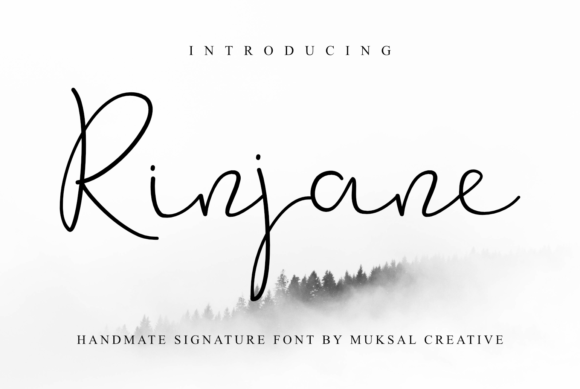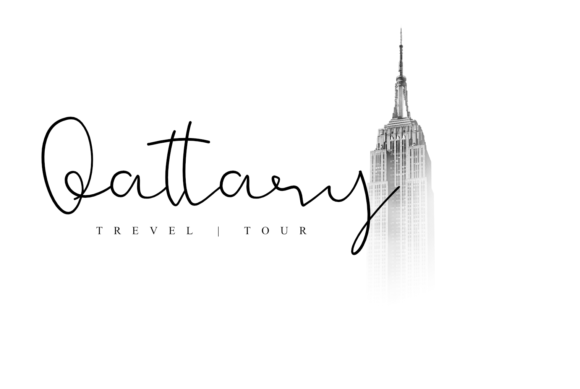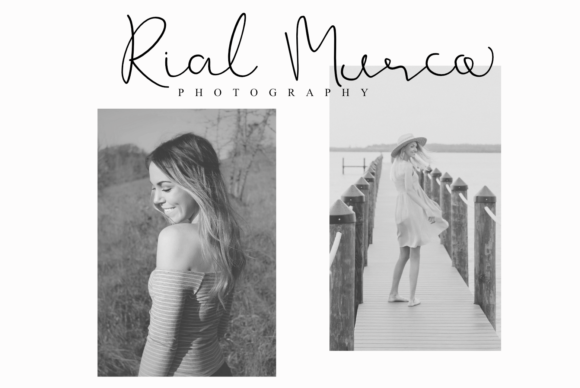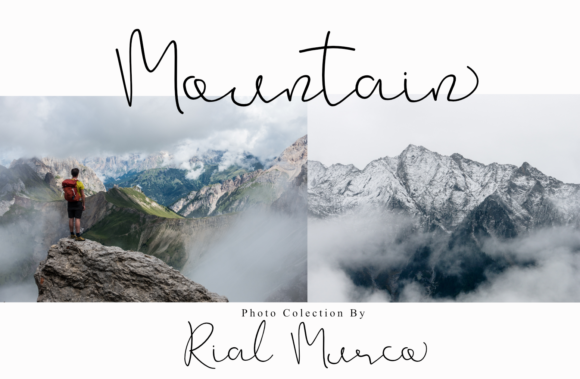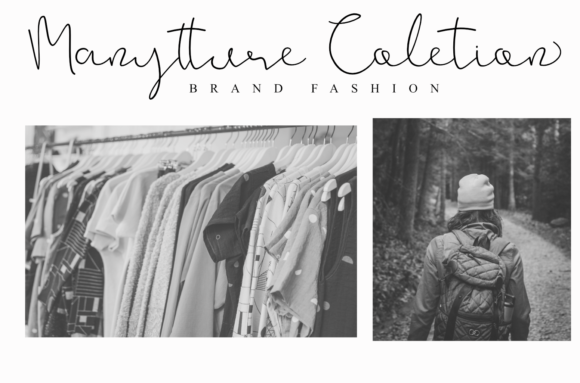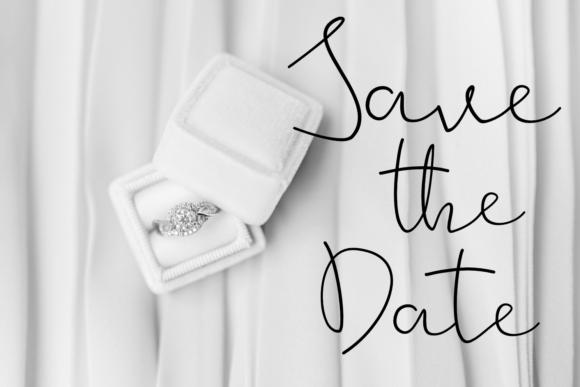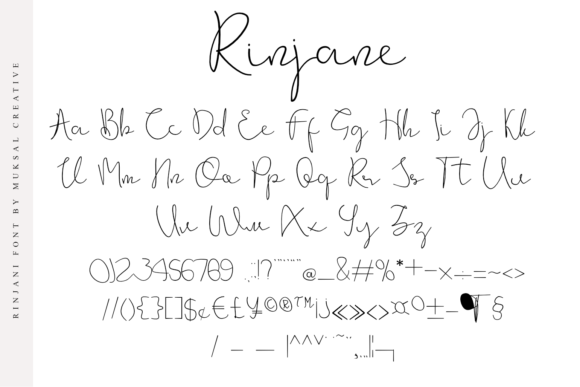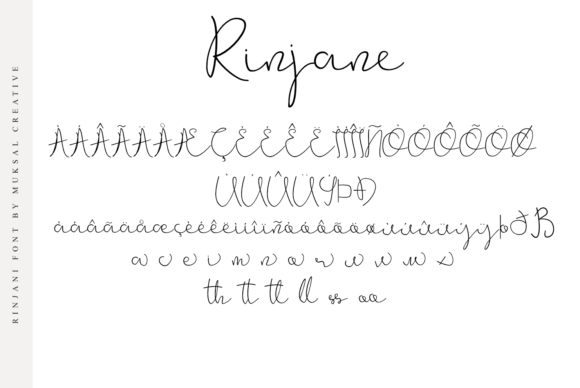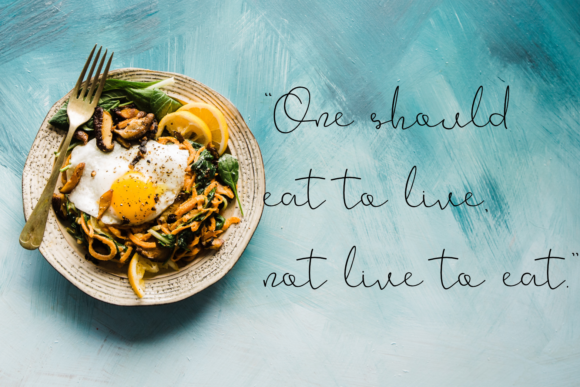
HomeScript FontsRinjane Font Script Fonts Rinjane Font FacebookXPinterestWhatsApp Rinjane Font Poster 2 Rinjane Font Poster 3 Rinjane Font Poster 4 Rinjane Font Poster 5 Rinjane Font Poster 6 Rinjane Font Poster 7 Rinjane Font Poster 8 Rinjane Font Poster 9 About Rinjane Font Rinjane is a stunning and dazzling handwritten font with a bold vibe. Get inspired by its unique style! DOWNLOAD ON CREATIVE FABRICAThis font is sold and delivered by Creative Fabrica. Font Canyon may earn a commission if you buy through this link. People also explored King Chameleon Font Andina Font Sorges Font Heyliana Font Ringnoxinzink Font Cartload Font Hillten Font Calligraphy Font Dwyne Font 295 0 TagsRinjane Font Previous articleEmma Signature FontNext articleTheodore Font LEAVE A REPLY Cancel reply Comment: Please enter your comment! Name:* Please enter your name here Email:* You have entered an incorrect email address! Please enter your email address here Website: Save my name, email, and website in this browser for the next time I comment. Personal Use Free Good Timing – Bold Personal Use Free Read more about this font Gagalin Personal Use Free Read more about this font Underwood Champion Personal Use Free Read more about this font Handayani Personal Use Free Read more about this font BLOG How to Install and Use Fonts on Windows, macOS, and Web Projects How to Install and Use Fonts on Windows, macOS, and Web Projects Fonts are a crucial part of design and branding. Whether you’re designing a... Best Fonts for YouTube Videos: Make Your Thumbnails Stand Out Free vs Paid Fonts: Why Investing in Premium Fonts Is Worth It Fonts That Capture the Spirit of New York City